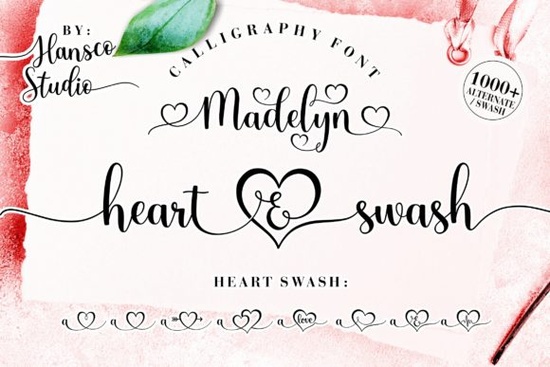
If you’ve been searching for a script font that feels both modern and effortlessly elegant, Madelyn Heart Font might be exactly what your next project needs. It’s clean, legible, and comes with those little decorative swashes that give your designs personality without overwhelming them. Whether you’re making wedding invitations, branding mockups, or printable wall art, this font adapts well across styles and surfaces.
What makes it especially handy is that it’s PUA encoded which basically means all the special characters, alternate glyphs, and swashes are easy to access without needing extra software or complicated key combinations. If you’ve ever struggled to find that one perfect flourish in another script font, you’ll appreciate how straightforward Madelyn Heart keeps things.
Who should consider using Madelyn Heart?
This font works beautifully for:
- Small business owners creating logos, packaging, or social media graphics that need a personal, handcrafted feel.
- Print-on-demand sellers designing mugs, shirts, or tote bags where script fonts tend to perform well.
- Crafters and hobbyists working on vinyl decals, scrapbooks, or greeting cards who want something stylish but not overly ornate.
- Designers looking for a versatile script that pairs well with sans-serifs or minimalistic layouts.
It’s not the kind of font that shouts for attention instead, it adds warmth and polish. Think of it as the quiet friend at the party who somehow ends up being everyone’s favorite.
How does it compare to other popular script fonts?
If you’ve used fonts like Chunky Font or Beautiful Chamomile, you know they each have their own vibe. Chunky leans bold and playful, while Chamomile brings soft, organic curves. Madelyn Heart sits somewhere in between polished enough for professional use but still relaxed enough to feel approachable.
You might also like pairing it with something like Santa Catalina for contrast, or layering it subtly over Victory Swing for a dynamic headline. And if you’re going for beachy, boho, or summery themes, try combining it with Beach Waves Duo the combo gives off major vacation vibes without looking kitschy.
What can you actually make with it?
Here are just a few real-world uses we’ve seen designers and crafters love:
- Wedding stationery Save-the-dates, menus, place cards. The elegance reads well even at small sizes.
- Branded quotes for Instagram Clean scripts like this photograph beautifully and don’t get lost in busy feeds.
- Product labels Especially for handmade goods, candles, or boutique skincare lines.
- Wall art prints Try it over muted watercolor backgrounds or minimalist line drawings.
- T-shirt slogans Works great for phrases like “She believed she could” or “Wild & Free” anything uplifting but not loud.
One thing to note: because it’s a script, avoid using it for body text or tiny labels. Stick to headlines, titles, or short phrases where its details can shine.
Any tips for getting the most out of the font?
A few quick ideas to help you use Madelyn Heart effectively:
- Play with letter spacing sometimes just a tiny bit of tracking (letter spacing) opens it up and makes it feel even more airy and modern.
- Use the swashes intentionally don’t add them everywhere. Pick one or two words in your design to highlight with a flourish.
- Pair it with a simple sans-serif fonts like Montserrat, Lato, or even Arial create nice balance and keep your layout readable.
- Test it in different weights or colors even though it’s a single weight font, changing color or adding a subtle shadow can totally change the mood.
And if you’re new to using PUA-encoded fonts, don’t worry most modern design tools (like Canva, Adobe apps, or Silhouette Studio) will let you browse alternate characters through their glyph panels. Just look for “Glyphs” or “Special Characters” in your toolbar.
Is it worth adding to your font library?
If you already own a dozen script fonts, ask yourself: do any of them feel this clean and flexible? Madelyn Heart isn’t trying to be vintage, grungy, or ultra-feminine it’s just a really well-made, contemporary script that gets out of your way and lets your message take center stage.
Fonts like this don’t come around every day simple, functional, and quietly beautiful. If that’s the kind of tool you want in your creative toolbox, Madelyn Heart won’t disappoint.